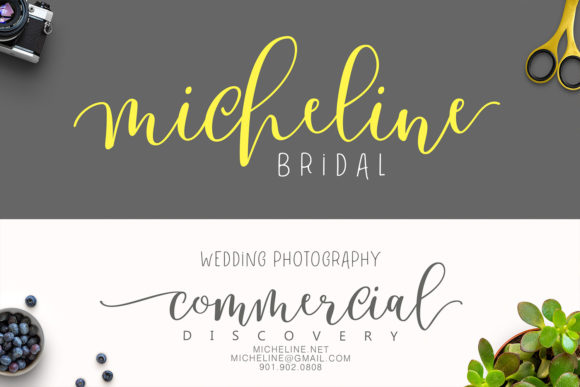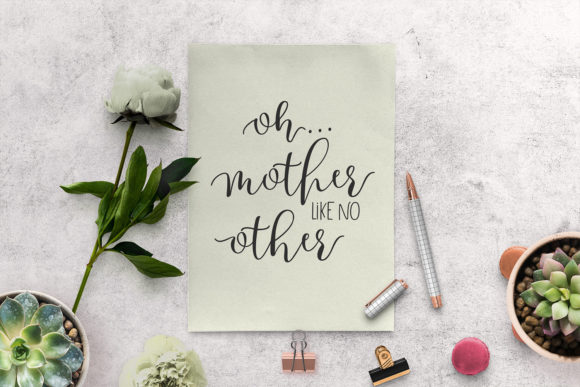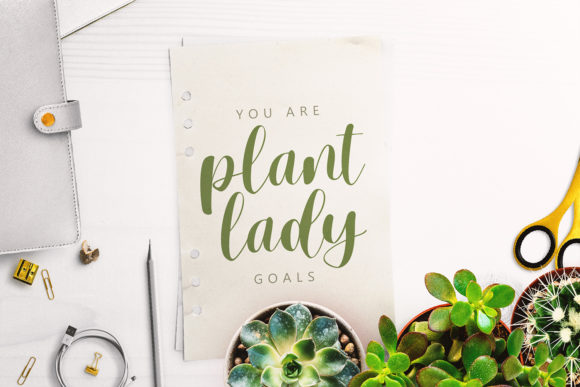
Madinah Script Font
Madinah is a beautiful duo-style script font with pleasingly updated calligraphy hand variations that have been given an additional hand-written combination of brush and ink. This font will look beautiful on all designs, Wedding designs, branding materials, blog titles, quotes and invitations, business cards.This font is PUA encoded, which means you can access all of the glyphs and swashes with ease!